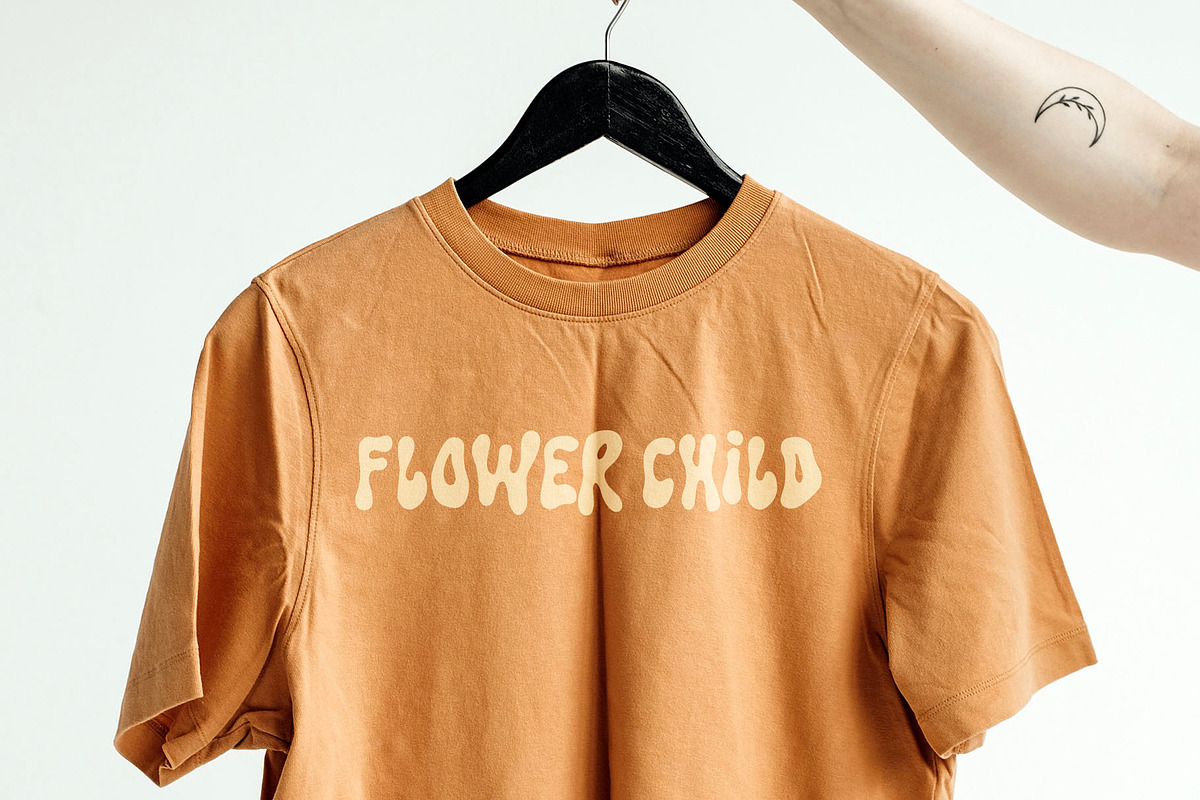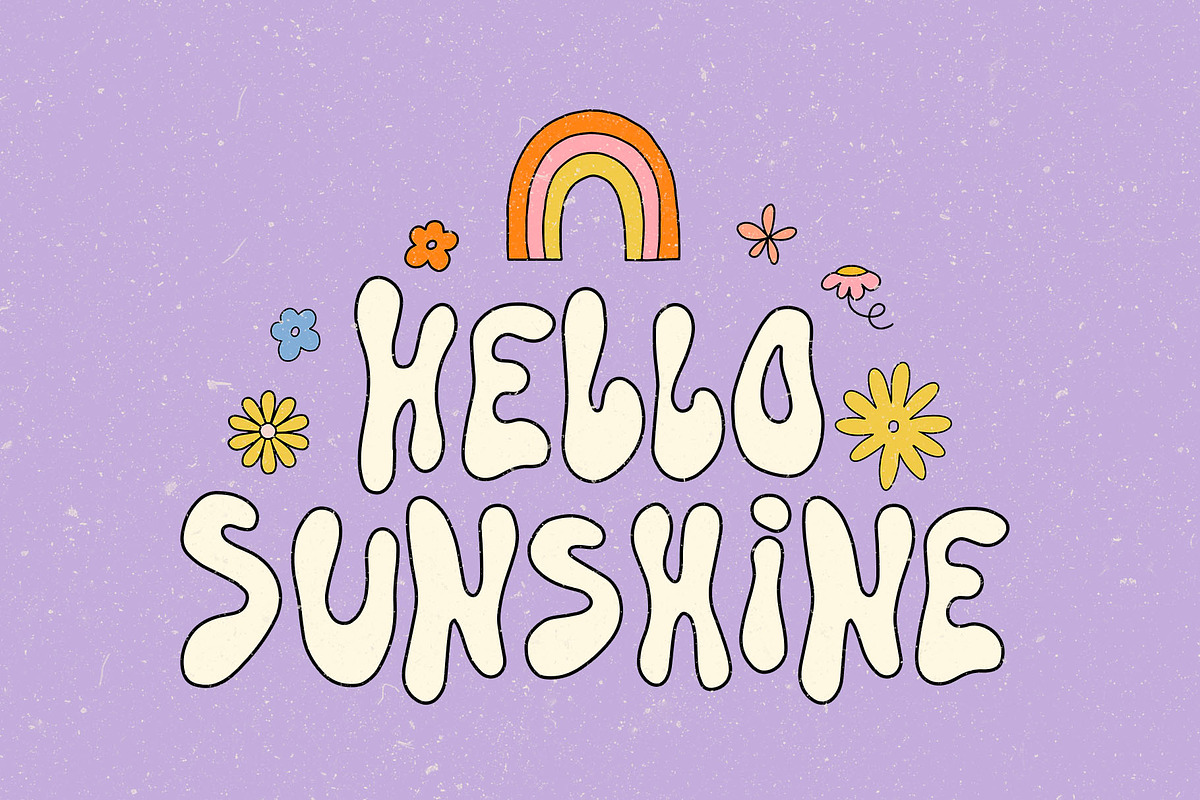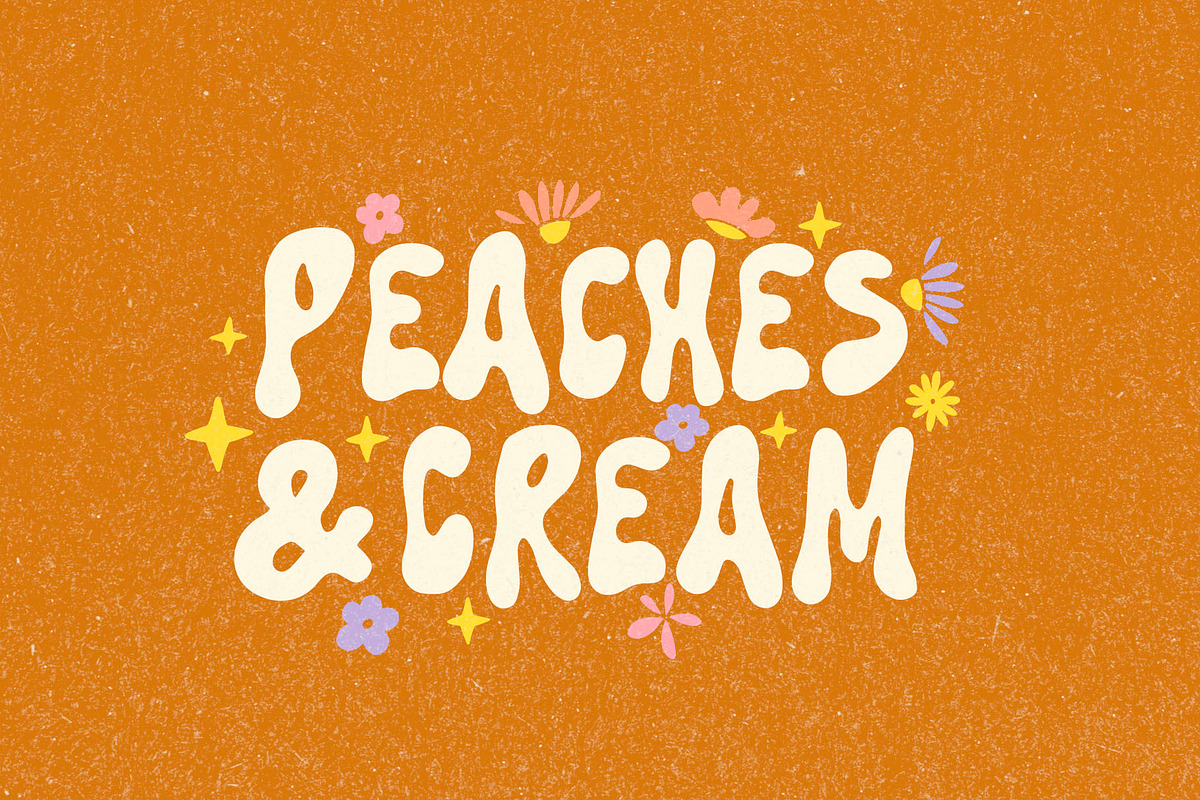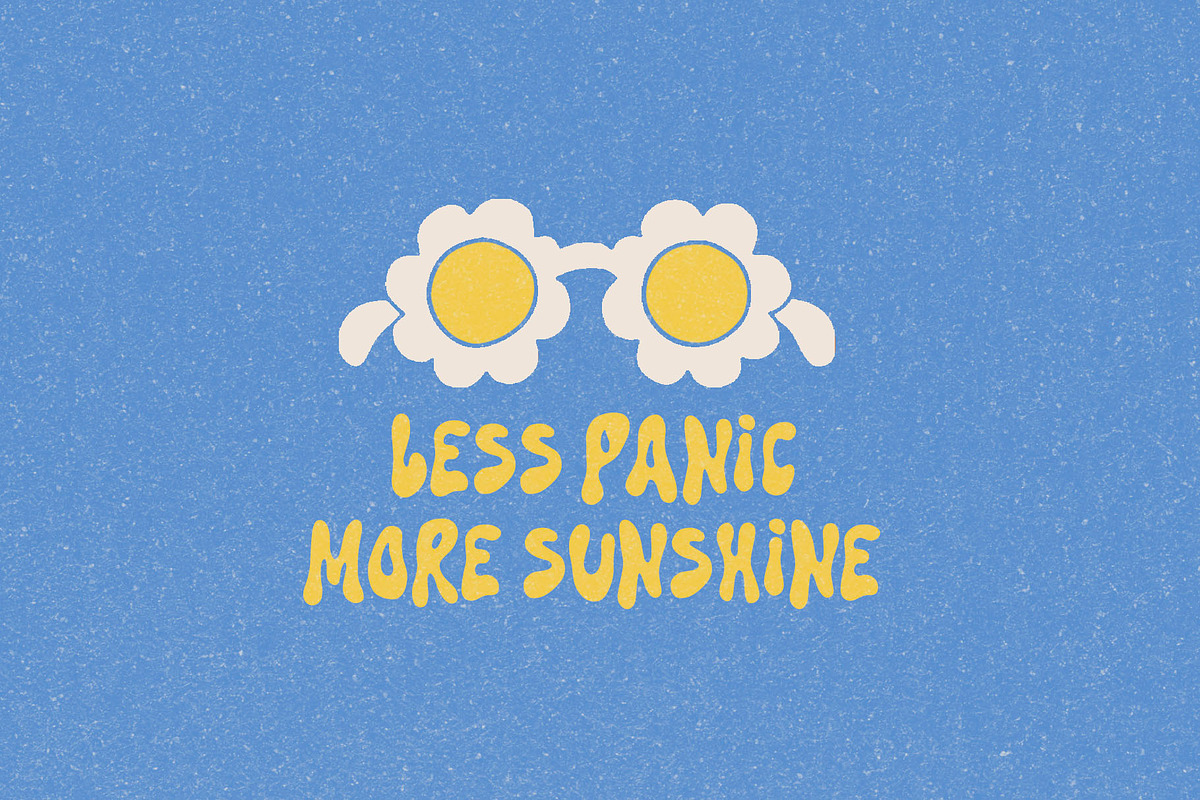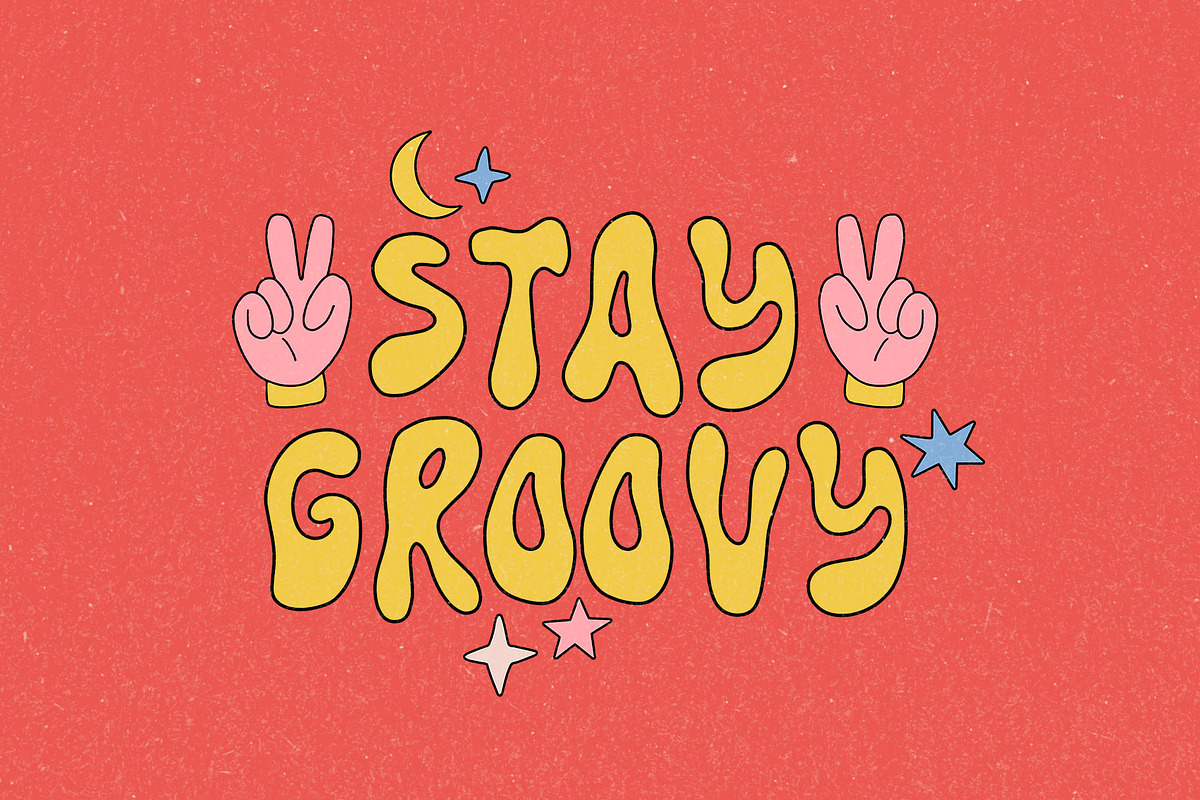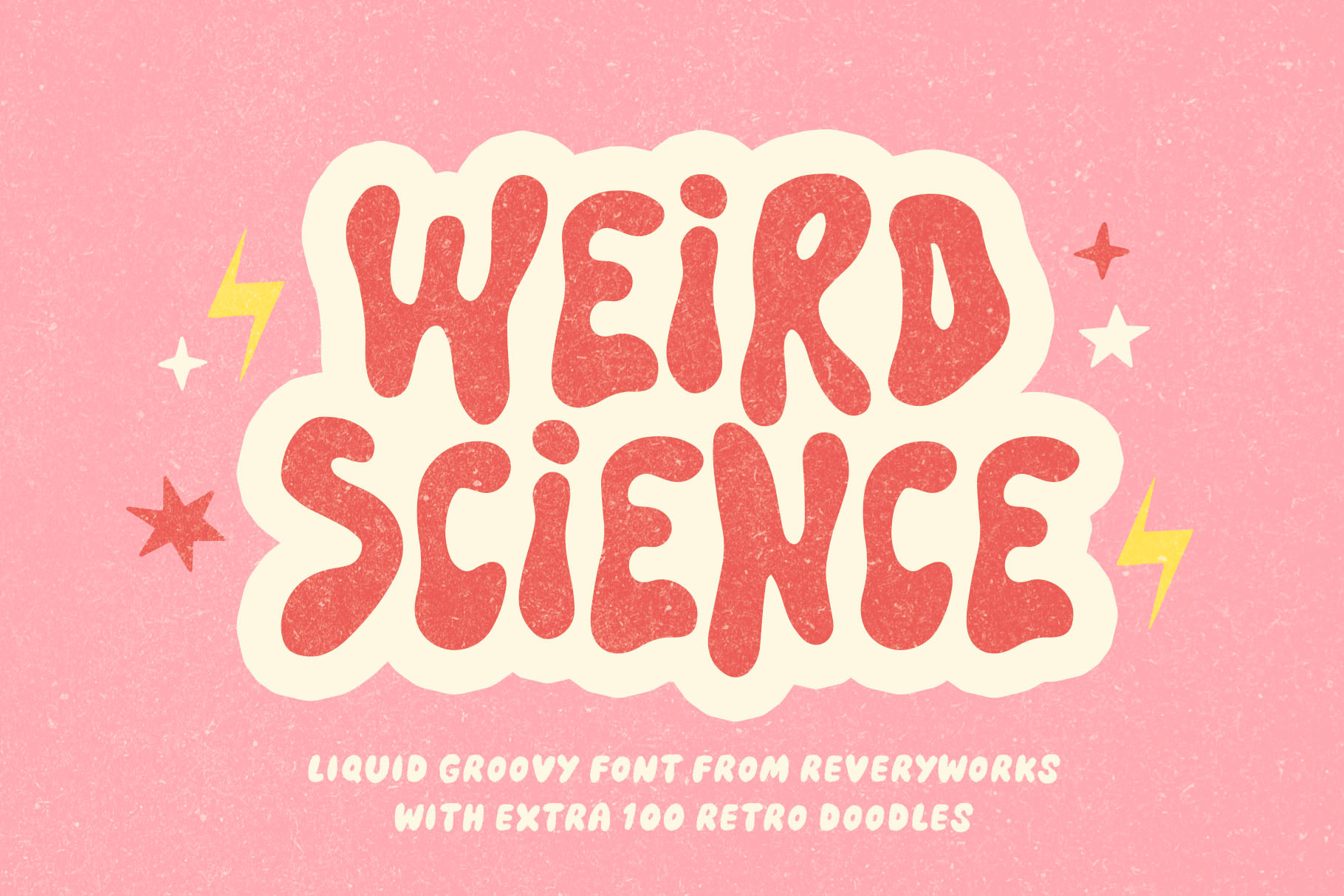
Weird Science Font & Doodles
Introducing Weird Science! A Groovy Psychedelic inspired liquid font. Its weird but in all the right ways :)
Its hippie, its bohemian and funky all at the same time! depending on how you style it, it shall serve you well :) Perfect for stickers, posters, collages, clothing, music albums and more.
It's all caps but includes alternate letters when using lowercase keystrokes. play around with the spacing of the letters for different effects. You can also add and outline stroke to achieve the "bubble" effect!
Jazz up your designs with the included matching illustrations. Included in 2 styles (with black outline and inverted with no black outline) 100 doodles in total.